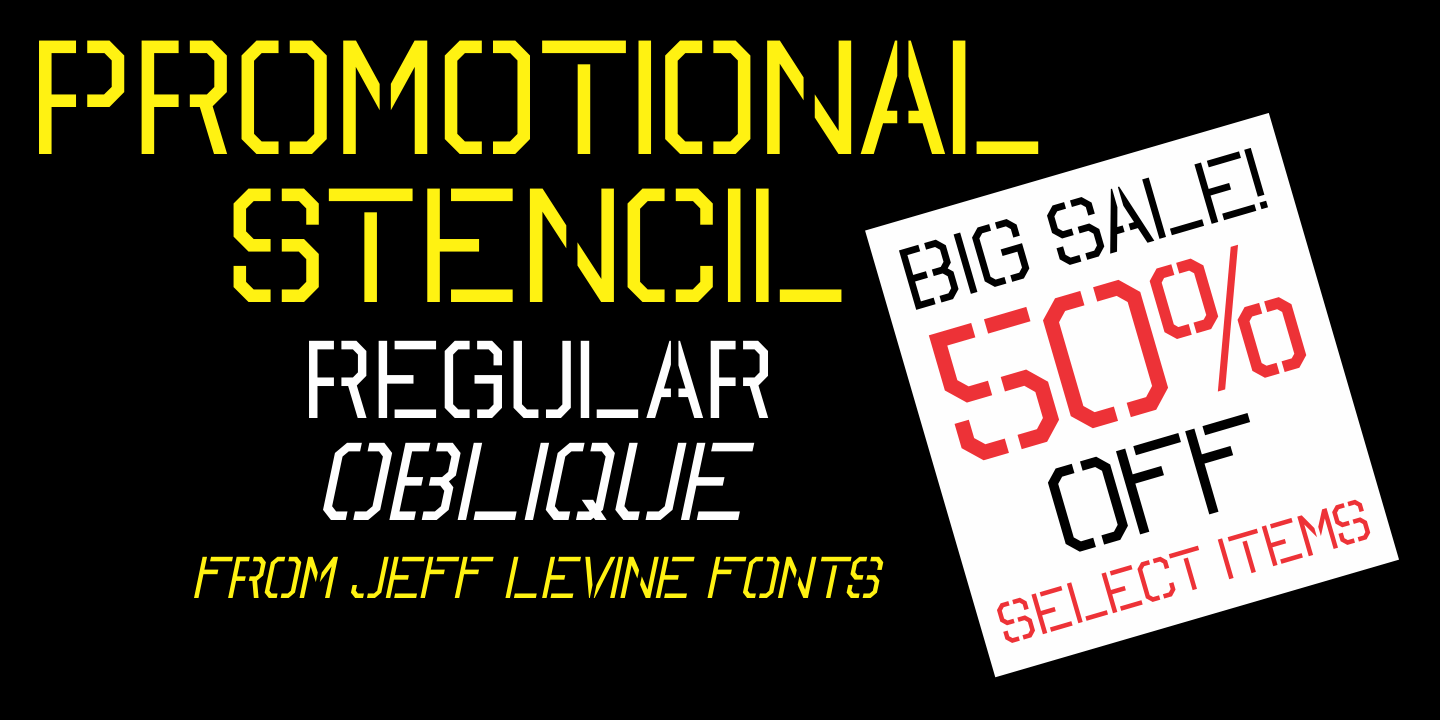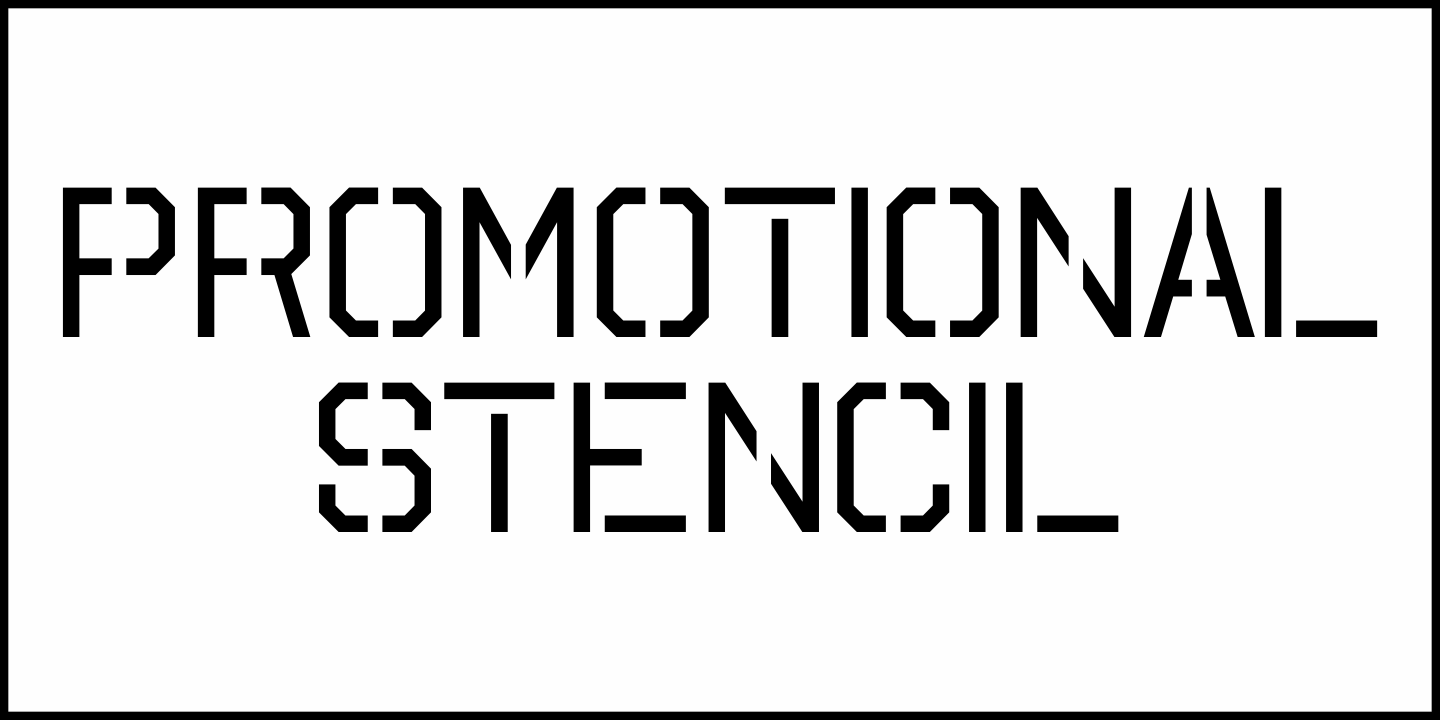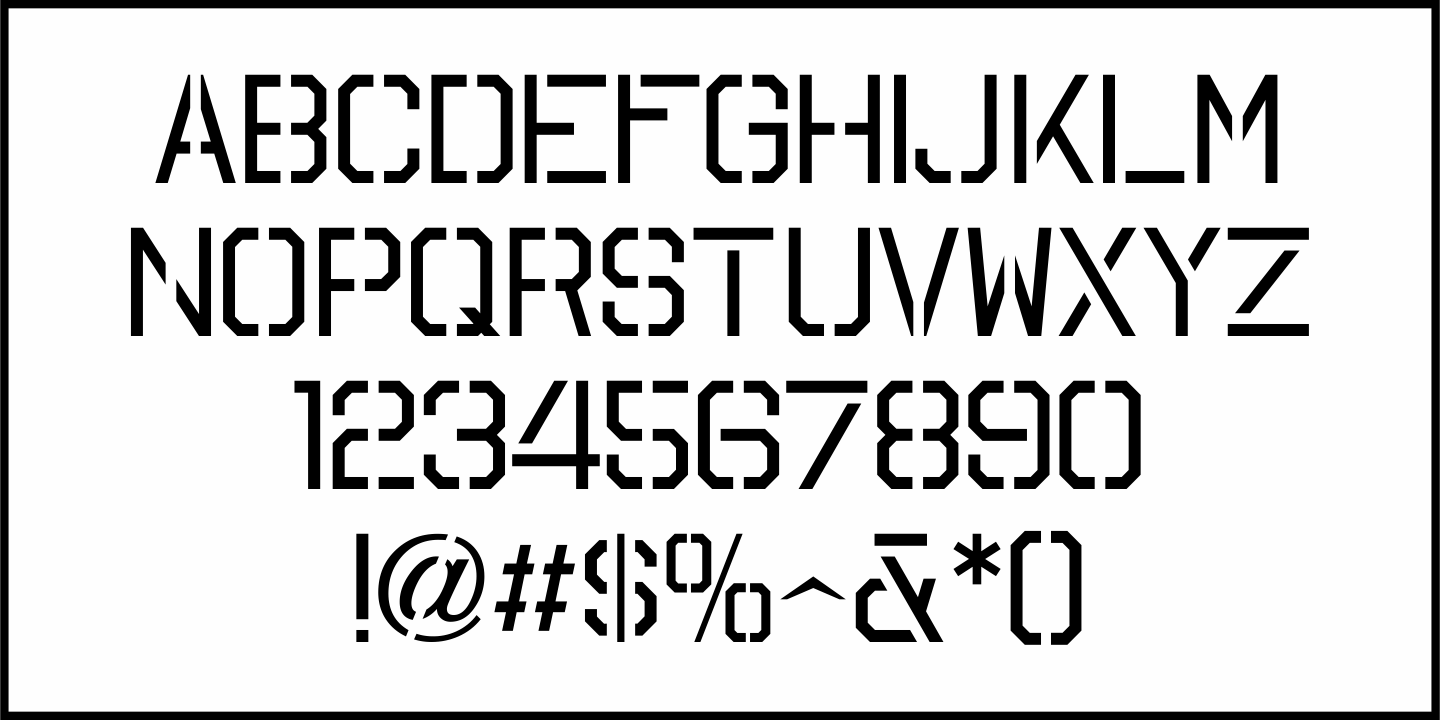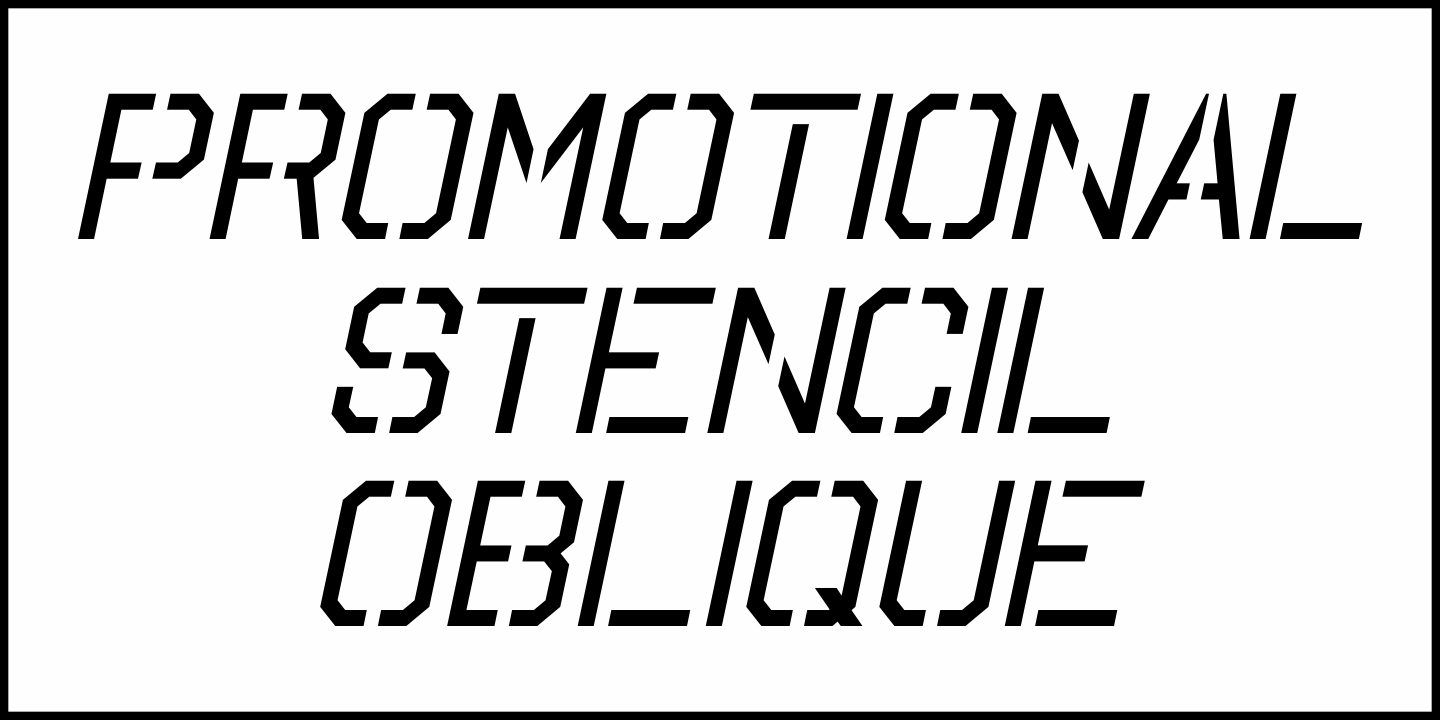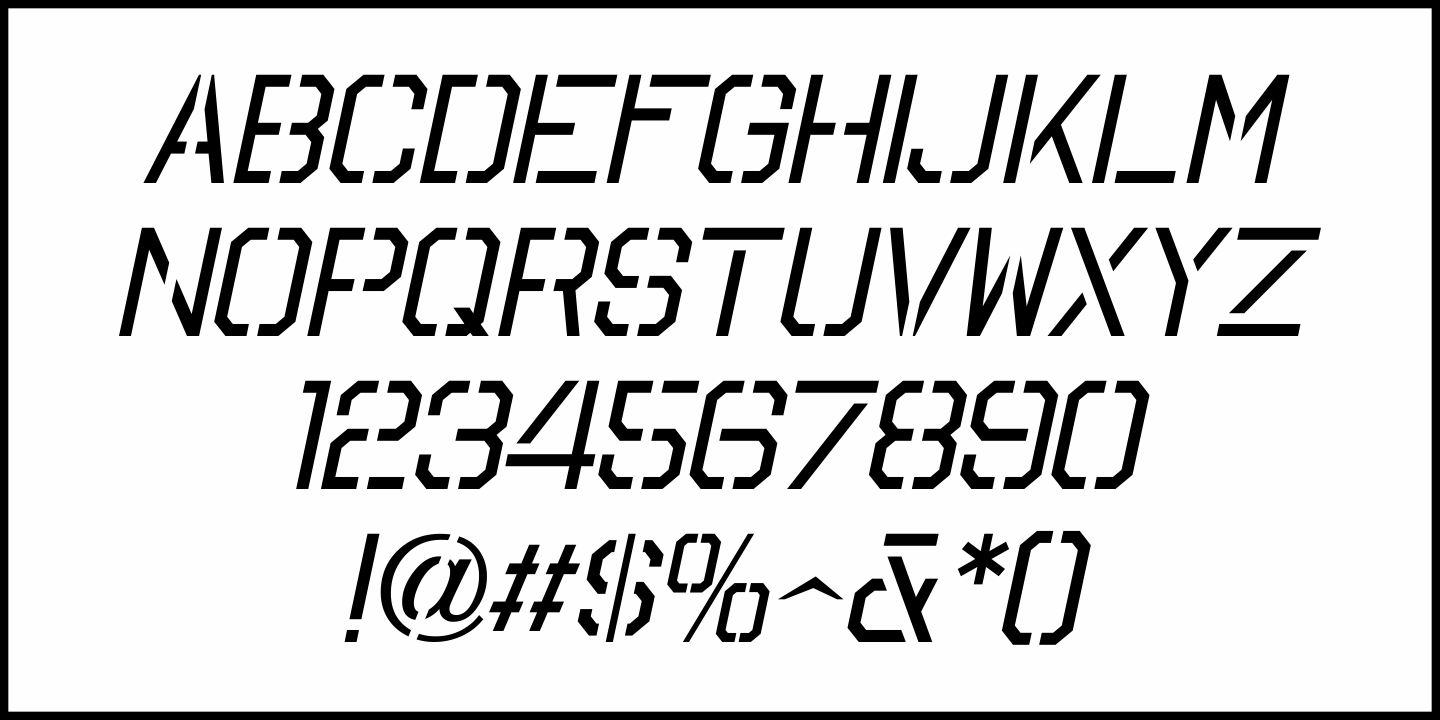
Promotional Stencil
In the December 11,1920 edition of Motion Picture News, a photo showing a theater's promotion for the film "Down on the Farm" had them using a hand lettered set of sans serif letters in a semi-stencil format (some stencil, some solid characters) with chamfered corners.
Redrawing this design digitally as a full stencil, it is now available as Promotional Stencil JNL, in both regular and oblique versions.